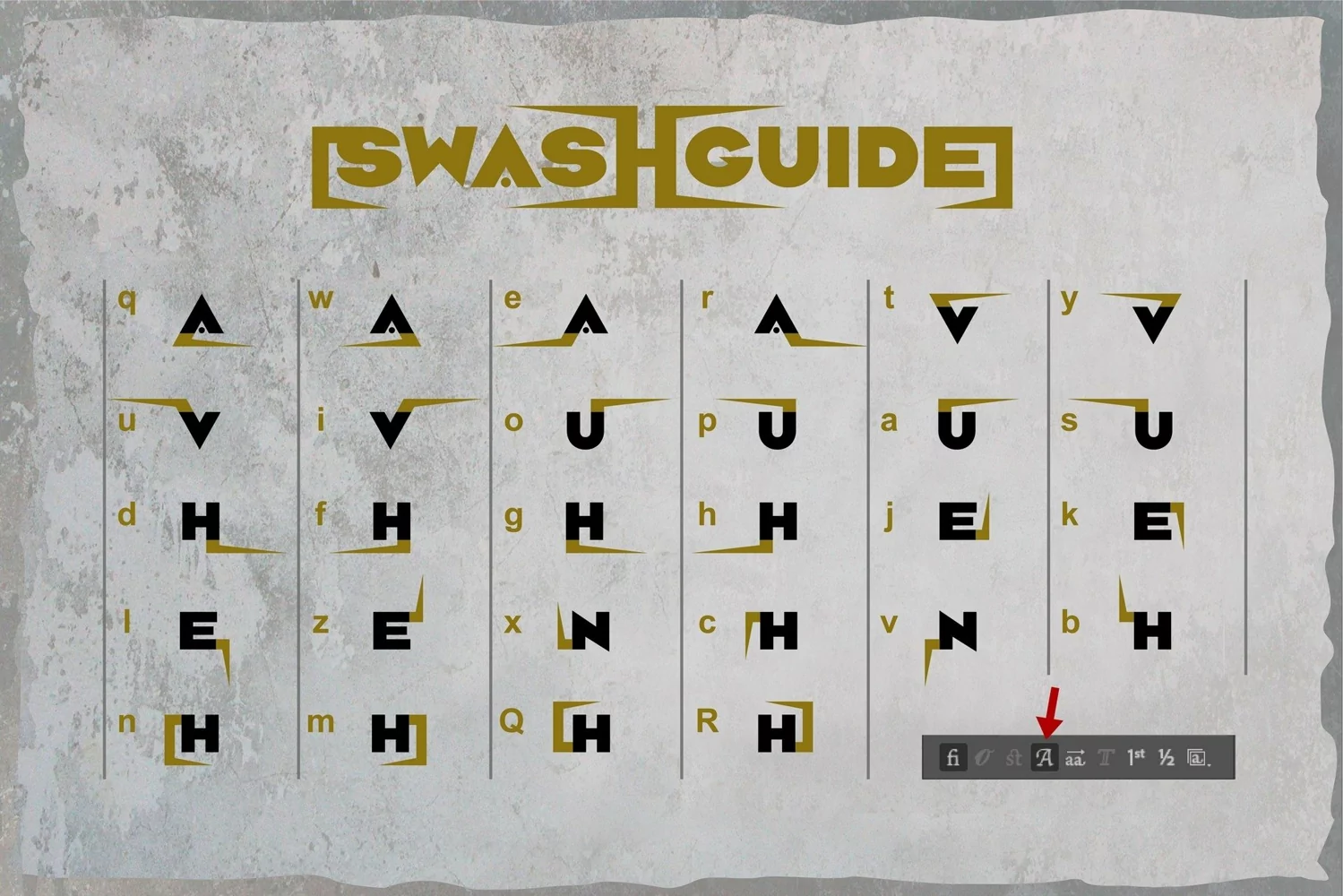
Black crow. Strong sans-serif family
Feature
Character Set A-Z (Uppercase & Lowercase)
Numerals & Punctuations
Accents (Multilingual characters)
Ligature
Swashes